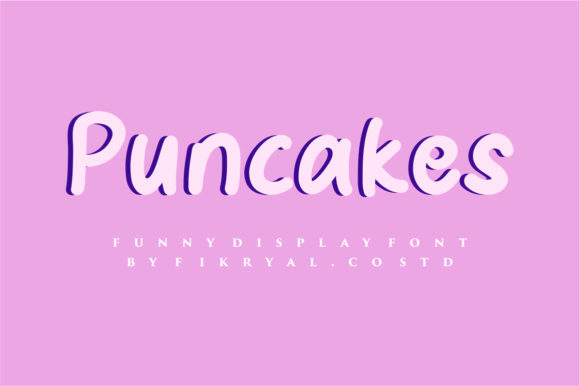
Puncakes Font
Journey into the world of Puncakes Font, a display font exuding freshness and sweetness like never before. Crafted with meticulous care by Fikryal Studio, Puncakes is more than just a font; it's an enchanting experience that brings life to your designs. Say goodbye to bland typography and embrace the captivating charm of Puncakes.
With its playful curves and elegant strokes, Puncakes Font adds a touch of whimsy to your designs. Imagine your logos, branding, social media posts, and advertisements bursting with personality, capturing the attention of your audience. Puncakes is not just versatile; it's a versatile chameleon, effortlessly adapting to any creative vision you have.
Visualize your social media feed adorned with Puncakes' charm, attracting followers like bees to honey. Your branding will stand out from the crowd, leaving a lasting impression on potential customers. Puncakes Font is the secret ingredient that transforms ordinary designs into captivating masterpieces.